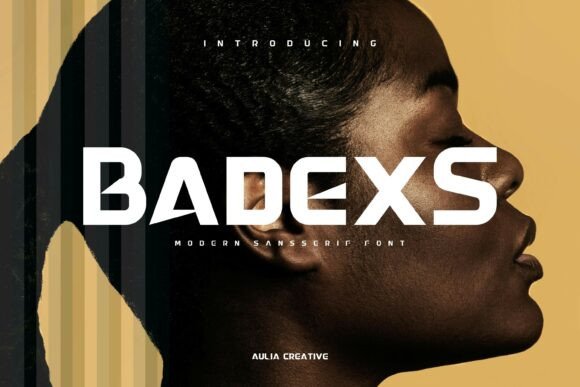
Introducing Badexs Font: The Ultimate Sans Serif Font for Creative Projects
Are you tired of using the same old fonts for your creative projects? Look no further than Badexs Font, an incredibly unique sans serif font that is sure to take your designs to the next level. Masterfully designed to become a true favorite, Badexs Font has the potential to bring each of your creative ideas to the highest level. In this article, we’ll take a closer look at what makes Badexs Font so special and why it’s a must-have for any designer or creative professional.
The Unique Features of Badexs Font
Badexs Font is a sans serif font, which means it doesn’t have the small lines or flourishes that are characteristic of serif fonts. This gives it a clean and modern look that’s perfect for a wide range of design applications. But what really sets Badexs Font apart is its unique design. The font features a distinctive blend of rounded and angular shapes, giving it a friendly and approachable feel that’s perfect for designs that need to convey a sense of approachability and warmth.
One of the standout features of Badexs Font is its exceptional legibility. The font is designed to be easy to read, even at small sizes, making it perfect for use in body text or for creating readable headings. The font also features a wide range of characters, including support for multiple languages, making it a great choice for designers who need to create multilingual designs.
The Benefits of Using Badexs Font
So why should you choose Badexs Font for your next design project? Here are just a few of the benefits of using this incredible font:
- Unique and distinctive design: Badexs Font is a true standout from the crowd, with a design that’s both modern and memorable.
- Exceptional legibility: The font is designed to be easy to read, even at small sizes, making it perfect for use in body text or for creating readable headings.
- Multilingual support: Badexs Font features support for multiple languages, making it a great choice for designers who need to create multilingual designs.
- Versatile: Badexs Font is perfect for a wide range of design applications, from branding and advertising to web design and more.
How to Use Badexs Font in Your Designs
Using Badexs Font in your designs is easy. Here are a few tips to get you started:
- Use it as a headline font: Badexs Font is perfect for use in headlines and titles, where its unique design and exceptional legibility can really shine.
- Pair it with other fonts: Badexs Font pairs well with a wide range of other fonts, making it easy to create interesting and dynamic designs.
- Experiment with different sizes and colors: Don’t be afraid to experiment with different sizes and colors of Badexs Font to create a look that’s uniquely yours.
The Design Process Behind Badexs Font
So how did Badexs Font come to be? The design process behind this incredible font involved a combination of creativity, technical expertise, and attention to detail. Here’s a brief overview of how the font was created:
The designer behind Badexs Font began by sketching out ideas by hand, using a combination of paper and digital tools to explore different design concepts. From there, they used specialized font design software to bring the design to life, carefully crafting each character to ensure that it was both beautiful and functional.
The result is a font that’s both unique and highly functional, with a design that’s sure to capture the attention of anyone who sees it.
| Font Name | Badexs Font |
In conclusion, Badexs Font is an incredibly unique sans serif font that’s sure to become a true favorite among designers and creative professionals. With its exceptional legibility, multilingual support, and versatile design, Badexs Font is perfect for a wide range of design applications. Whether you’re looking to create a bold and eye-catching headline or a readable and professional-looking body of text, Badexs Font is the perfect choice.
FAQs About Badexs Font
- What type of font is Badexs Font?: Badexs Font is a sans serif font.
- Is Badexs Font easy to read?: Yes, Badexs Font is designed to be highly legible, even at small sizes.
- Does Badexs Font support multiple languages?: Yes, Badexs Font features support for multiple languages.